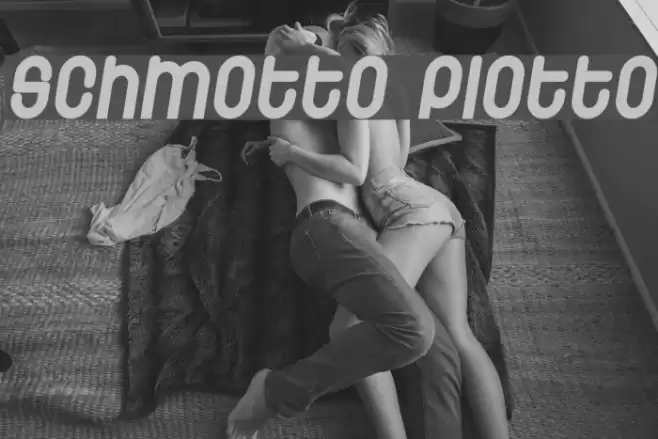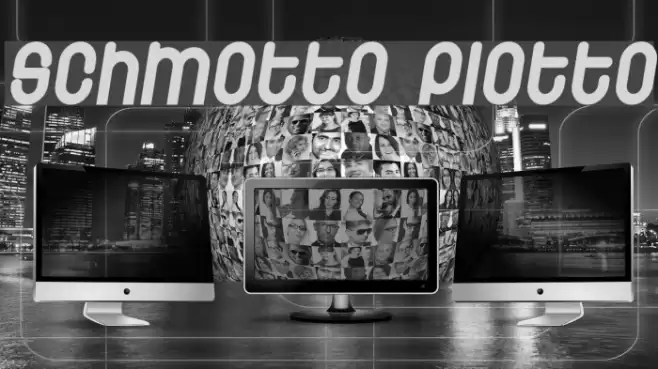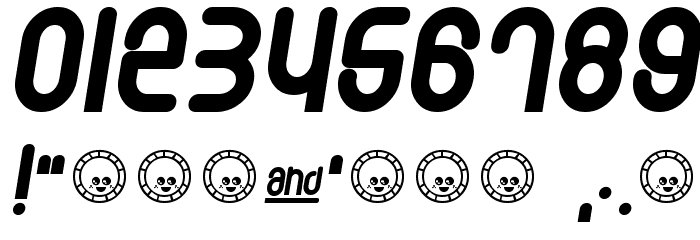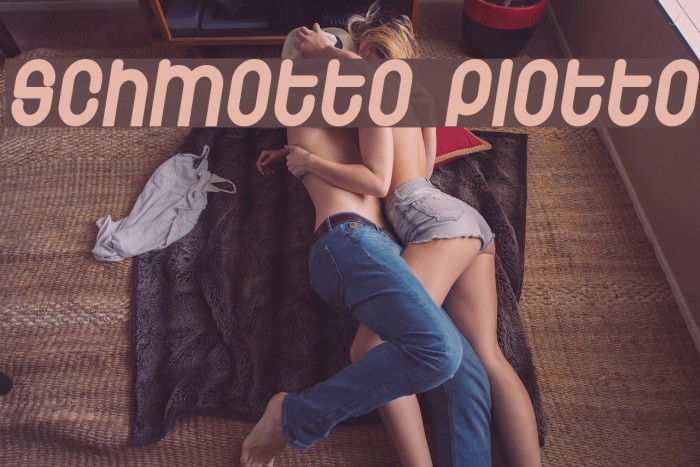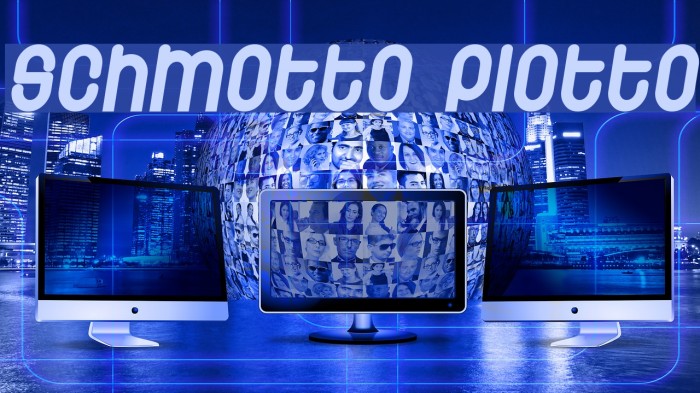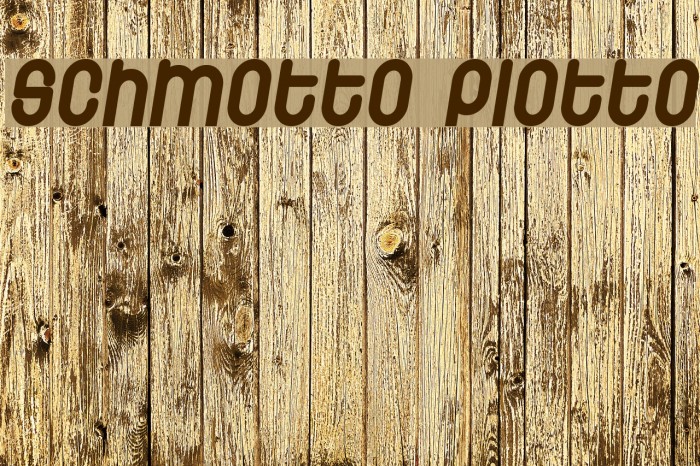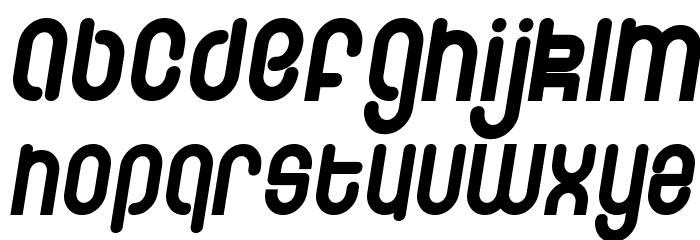
Schmotto Plotto Font
Schmotto Plotto Description
This font features a unique, playful design with rounded edges and a bold presence. The characters have a modern, slightly futuristic look, with a consistent stroke width that gives it a cohesive appearance. The uppercase and lowercase letters maintain a uniform style, with the lowercase mirroring the uppercase in form. Numbers and special characters follow the same design principles, ensuring a harmonious overall look. The font's distinct style makes it suitable for creative and eye-catching designs.
A bold, rounded font with a playful and modern aesthetic from Futuristic fonts.
- Proposed Projects: Ideal for branding, posters, and creative projects that require a distinctive and modern touch.